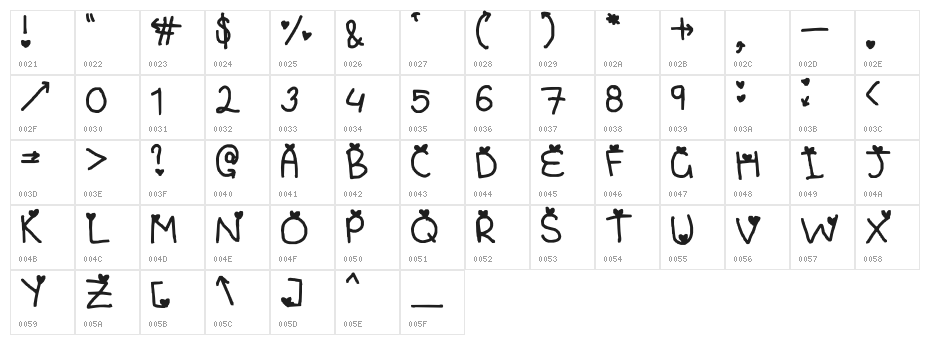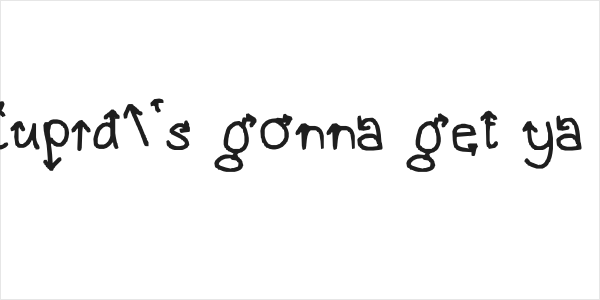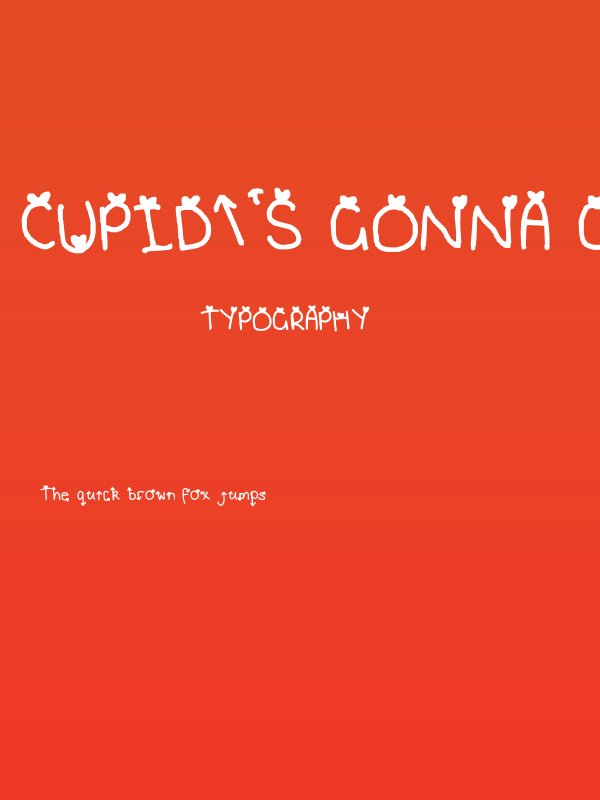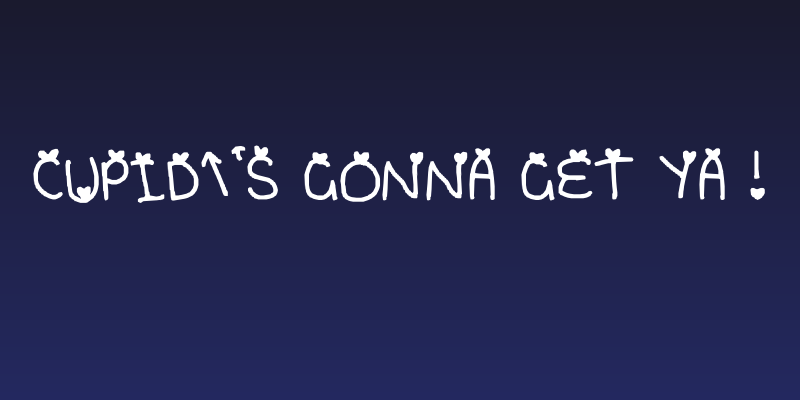
Cupid's gonna get ya ! Font
Cupid's gonna get ya ! Description
This playful and whimsical font features heart-shaped accents and arrow motifs integrated into the characters, giving it a unique and charming appearance. The letters are bold and slightly irregular, adding a hand-drawn feel that enhances its playful nature. The uppercase and lowercase letters maintain a consistent style, with arrows often replacing traditional serifs or extending from the ends of strokes. Numbers and special characters follow the same decorative theme, making the font cohesive and visually engaging. This font is perfect for projects that require a touch of romance or fun, such as Valentine's Day cards, wedding invitations, or playful branding materials.
| Overall Style | Playful, Romantic |
| Proposed Projects | Ideal for Valentine's Day cards, wedding invitations, playful branding, and children's book covers. |